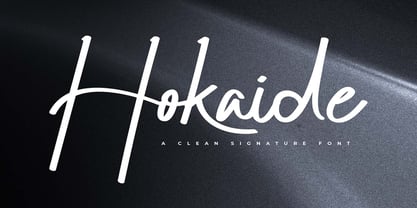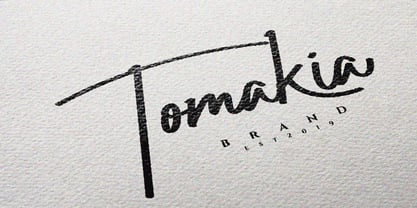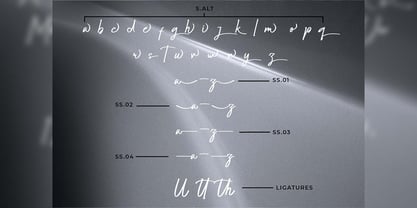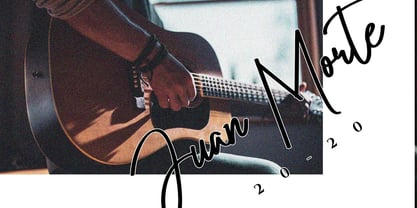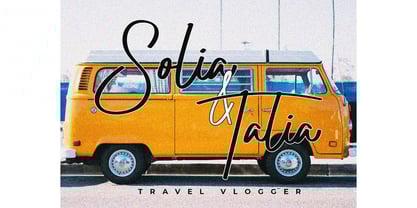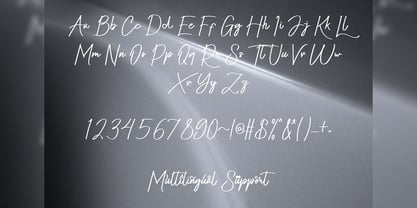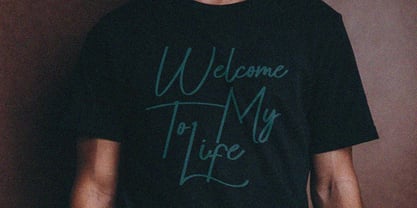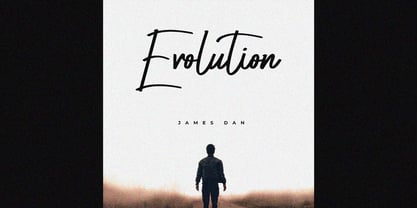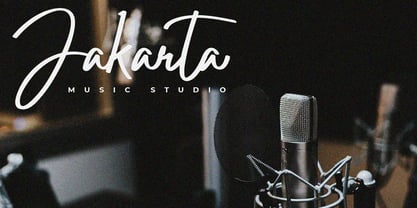
Hokaide
von Jadatype
Die Schriftfamilie Hokaide wurde von Jada Akbal entworfen und von Jadatype veröffentlicht. Hokaide enthält 1 Stile.
Designer: Jada Akbal
Herausgeber: Jadatype
Foundry: Jadatype
Eigentümer des Designs: Jadatype
Jadatype is a 1-member indie font foundry formed in early 2021. it has created more than 200 fonts with various types of styles. the designer doesn't really have a special style when creating his fonts, but he certainly likes the fonts he has created and he hopes you like them too. the various types of font styles that have been uploaded by Jadatype are specially created by one designer. the designer has a degree in engineering but loves the world of typography. he likes to create font displays with styles that are different, eye-catching and young-playful themes.